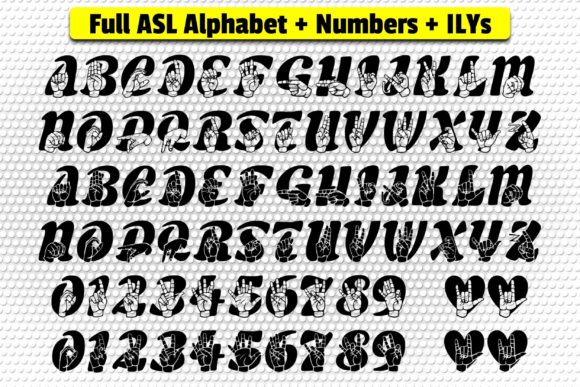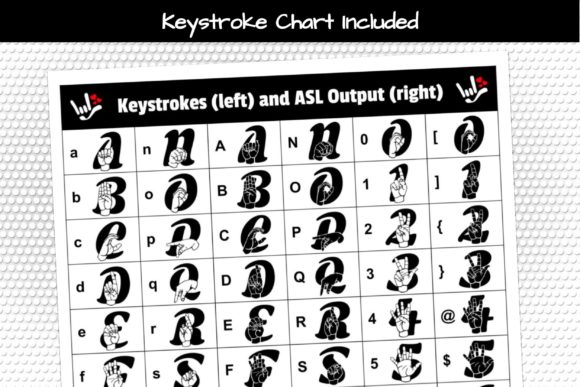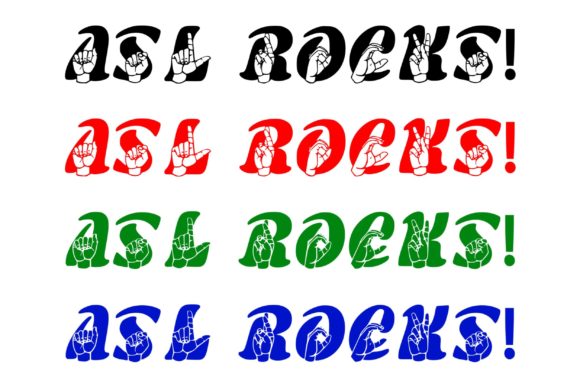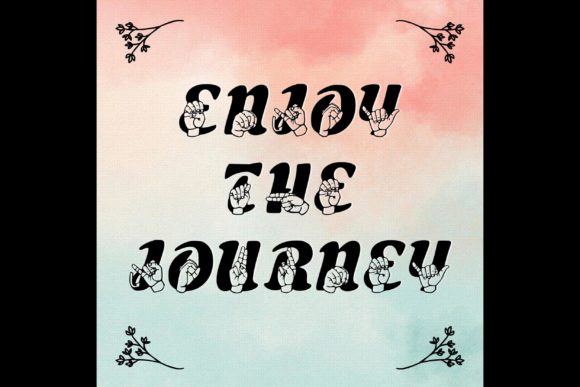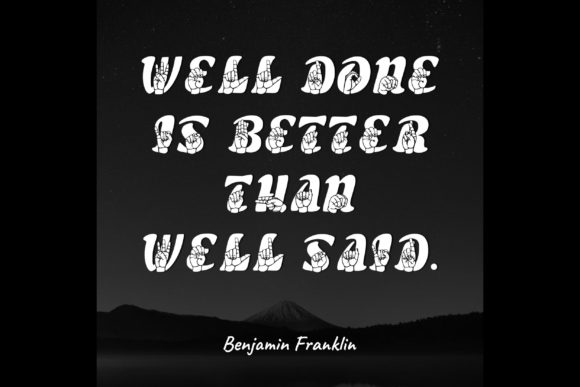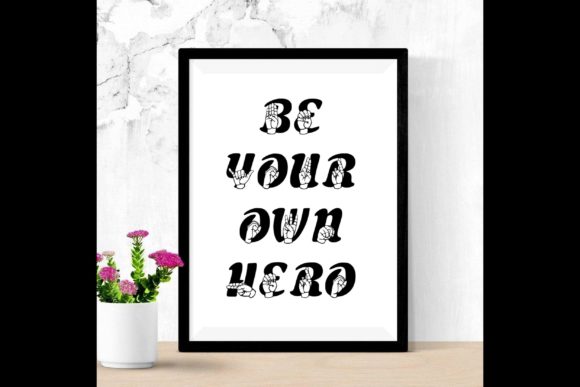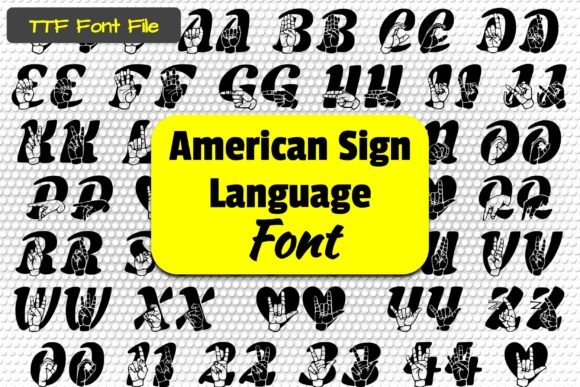
Unlock the Art of Visual Storytelling with Fonts
As a designer, have you ever found yourself stuck in a creative rut, struggling to convey the perfect message through words alone? The moment of inspiration strikes when you stumble upon the perfect font, and your design comes to life. This is exactly what happens when you discover the Able Lingo ASL 5 Font.
This cool and useful dingbats font is a game-changer for designers looking to add an extra layer of visual appeal to their work. Whether it’s a food menu, poster, flyer, or print, the Able Lingo ASL 5 Font is sure to make your designs stand out. Its endless possibilities make it a valuable addition to any designer’s toolkit.
Able Lingo ASL 5 Font Key Features
- Font Family: A comprehensive set of American Sign Language (ASL) fonts, including ASL 5, ASL 5 Bold, ASL 5 Italic, and ASL 5 Bold Italic.
- Character Count: Over 3,000 unique handshapes, fingerspelling, and punctuation characters, making it an extensive resource for ASL communication.
- Unique Characteristics: The ASL 5 Font is specifically designed to mimic the natural flow and structure of ASL, with carefully crafted handshapes and finger placement to accurately represent the language.
Able Lingo ASL 5 Font Review
I’ve had the chance to work with the Able Lingo ASL 5 Font, and here are my honest thoughts:
- The font’s bold lines and clear letterforms make it highly legible, even in smaller font sizes.
- The font’s versatility shines through in its ability to be used for both digital and print applications.
- The font’s unique design, inspired by American Sign Language (ASL), adds a touch of cultural sensitivity and awareness to any project.
- The font’s limited character set may make it difficult to use for complex, multi-language projects.
- The font’s weight may not be ideal for headings or titles, as it can appear too bold or overpowering.
- The font’s design may not be suitable for projects that require a more neutral or generic font style.
Overall, I think the Able Lingo ASL 5 Font is a great choice for projects that require a unique and culturally sensitive font. While it may have some limitations, its versatility and legibility make it a solid addition to any designer’s toolkit.
For the best results, use the Able Lingo ASL 5 Font in conjunction with other fonts and design elements to create visually appealing and informative content. Experiment with different font sizes, colors, and styles to convey meaning and emphasis.
The Able Lingo ASL 5 Font is ideal for creating visual content related to American Sign Language (ASL), such as:
– Sign language dictionaries and glossaries
– Educational materials and resources
– Marketing materials and branding